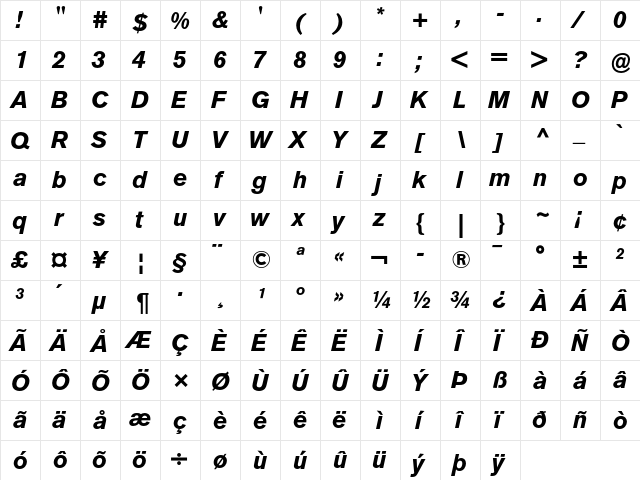
Berthold Akzidenz Grotesk Bold Italic Font Preview
Berthold Akzidenz Grotesk Bold Italic
Design Context for Berthold Akzidenz Grotesk Typeface
Berthold Akzidenz Grotesk has the quiet confidence of well-executed sans-serif typography: versatile, unobtrusive, and dependable at any size. The slanted form adds forward momentum and visual energy. Its bold stroke weight gives it real presence on the page.
Well-suited to navigation labels, product packaging, and anywhere legibility at scale is essential.
Font Pairing: Use Berthold Akzidenz Grotesk for headlines alongside a lighter-weight sans or serif for body copy to establish clear visual hierarchy.
Pro Tip: Use Berthold Akzidenz Grotesk for UI labels, navigation, and short-form body copy where clean legibility is the priority.